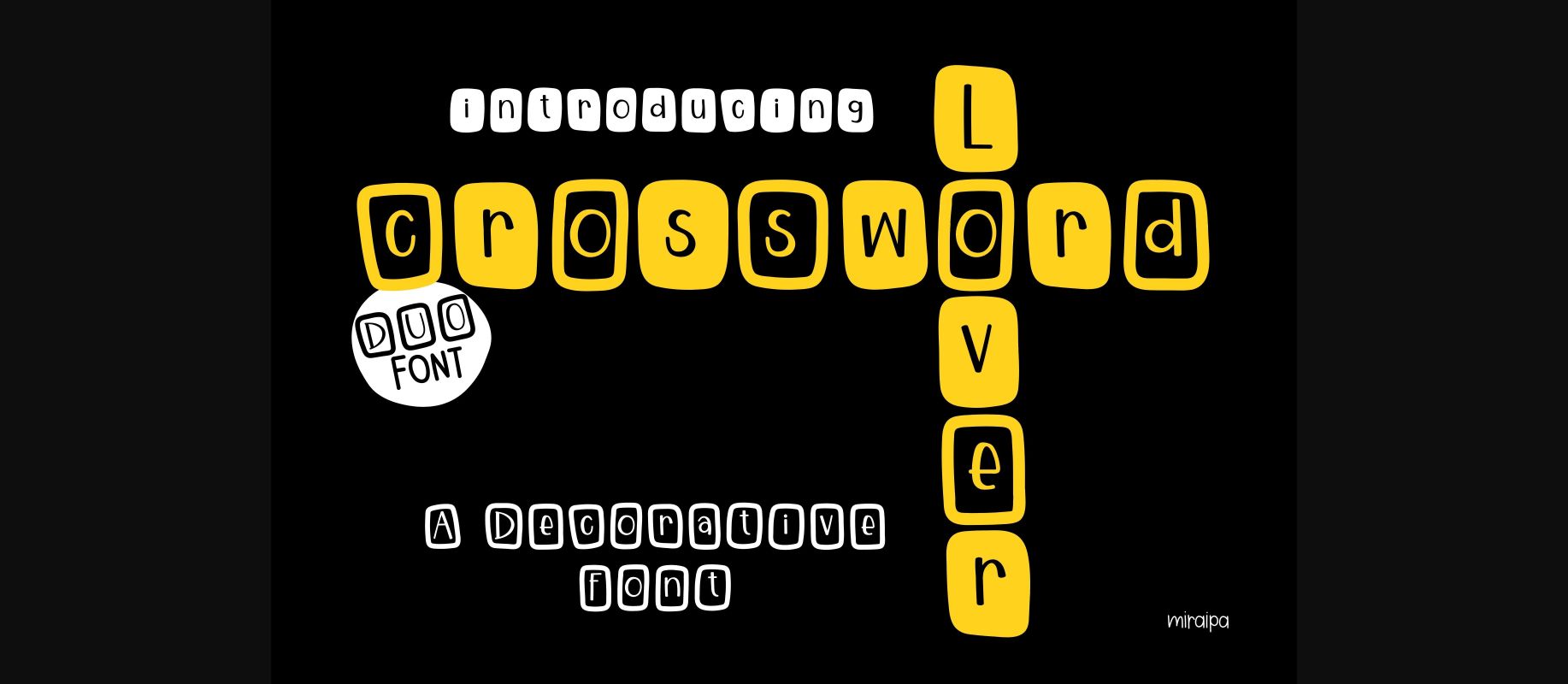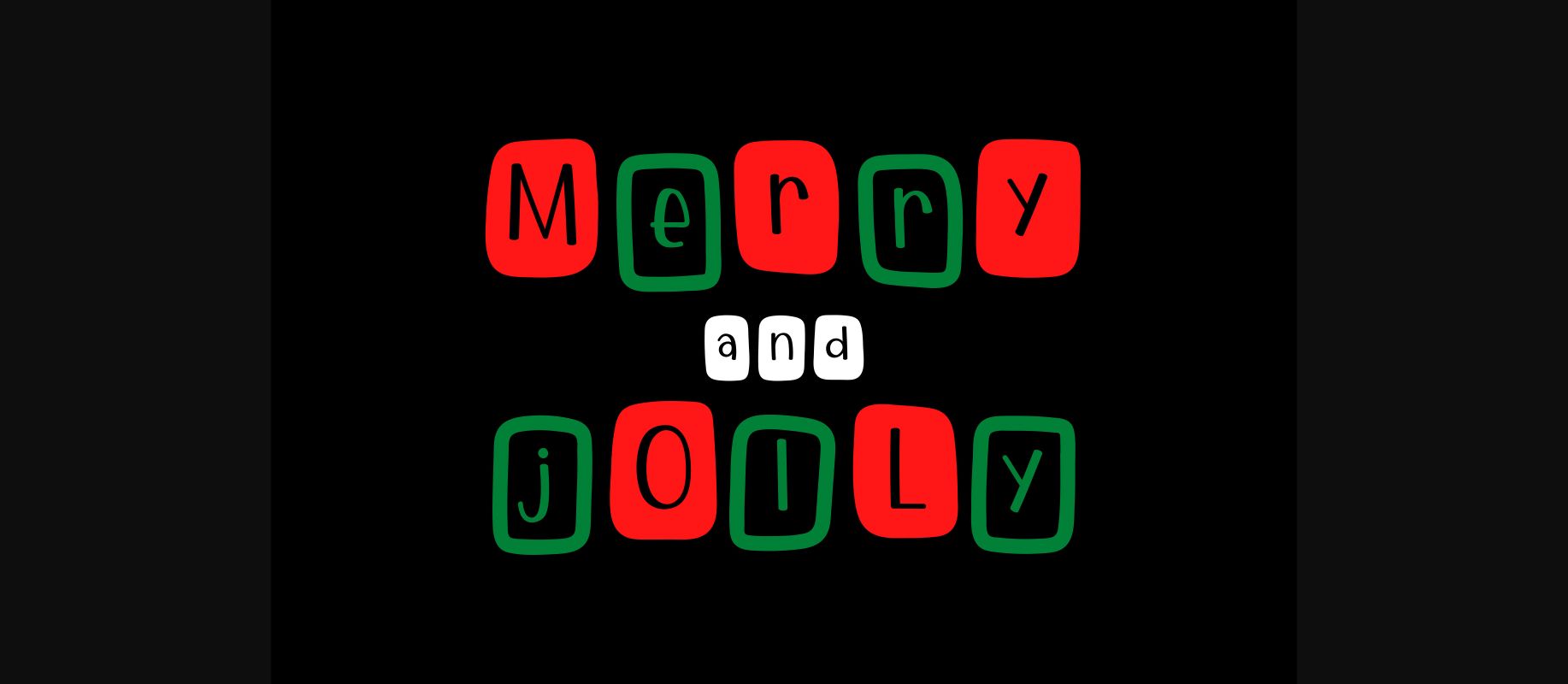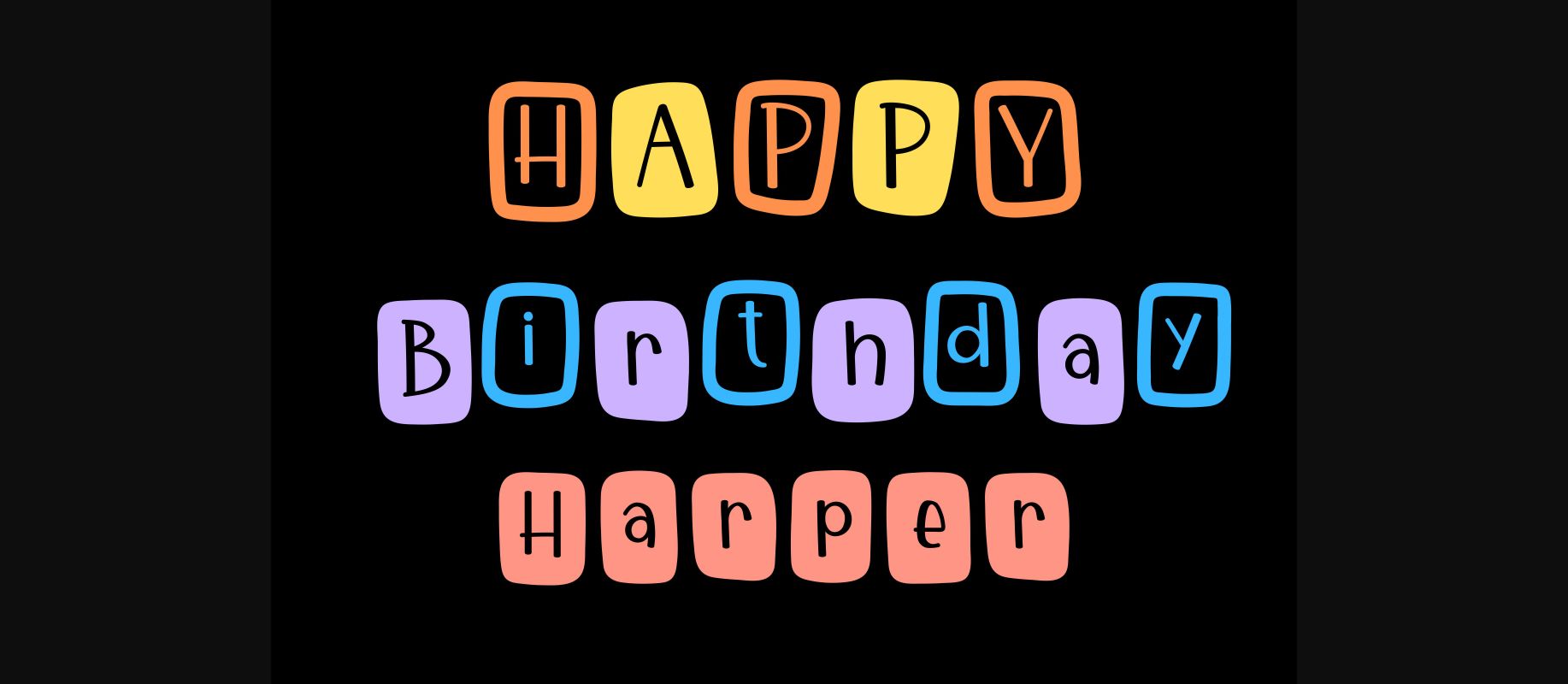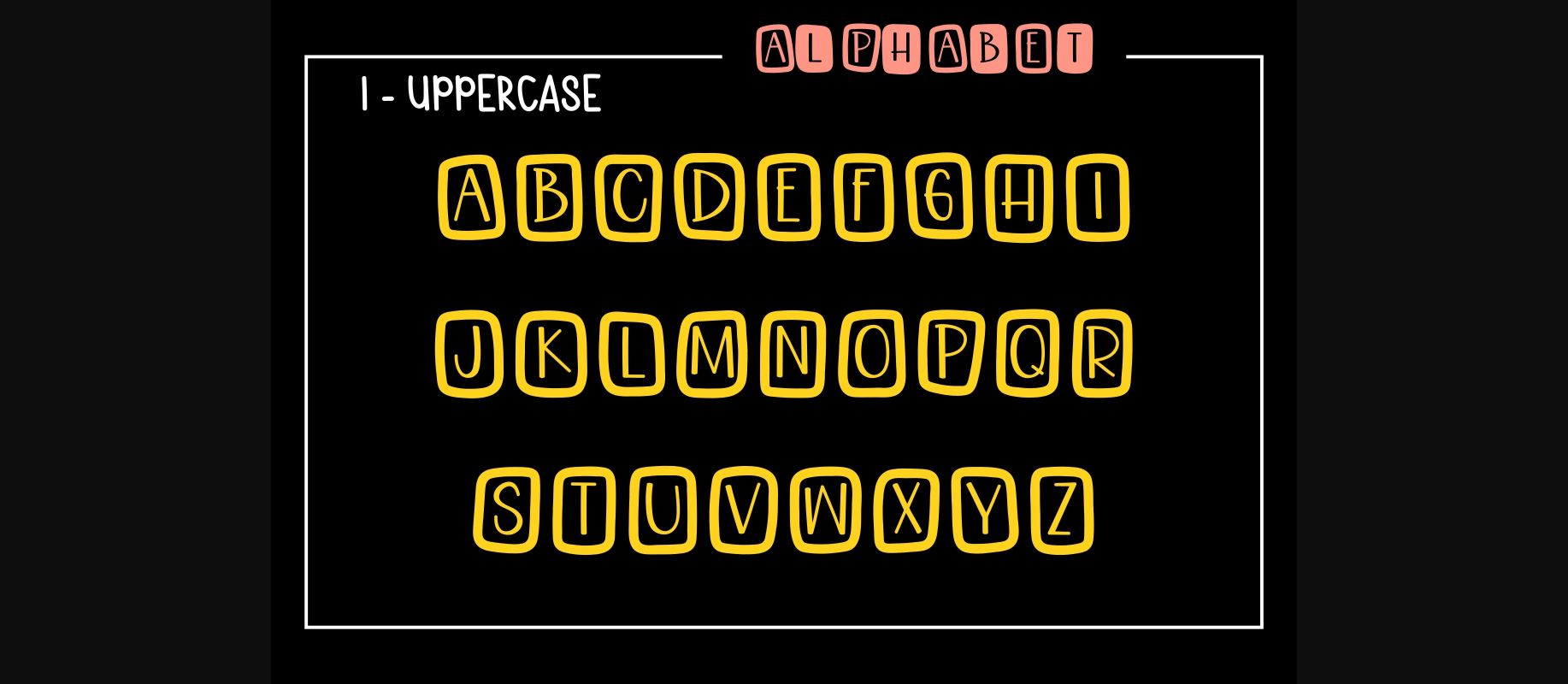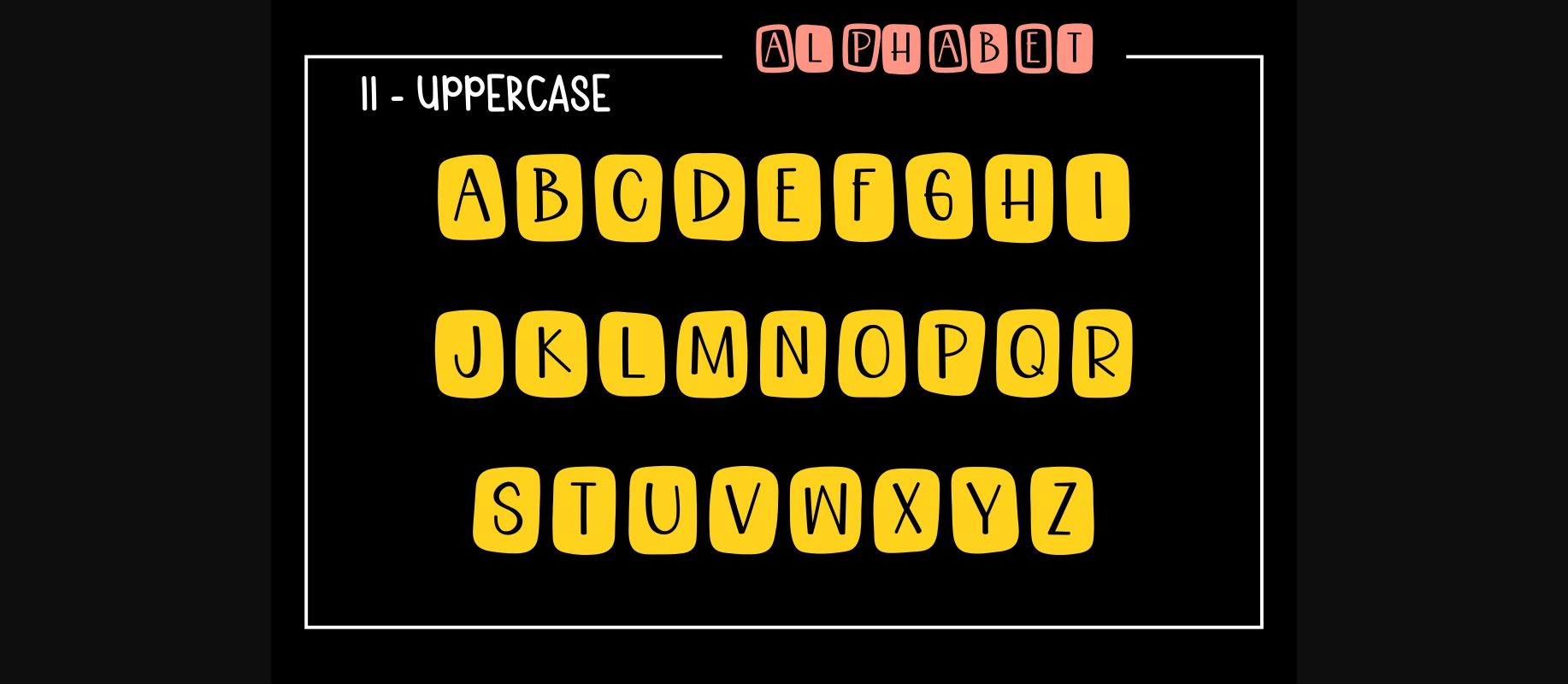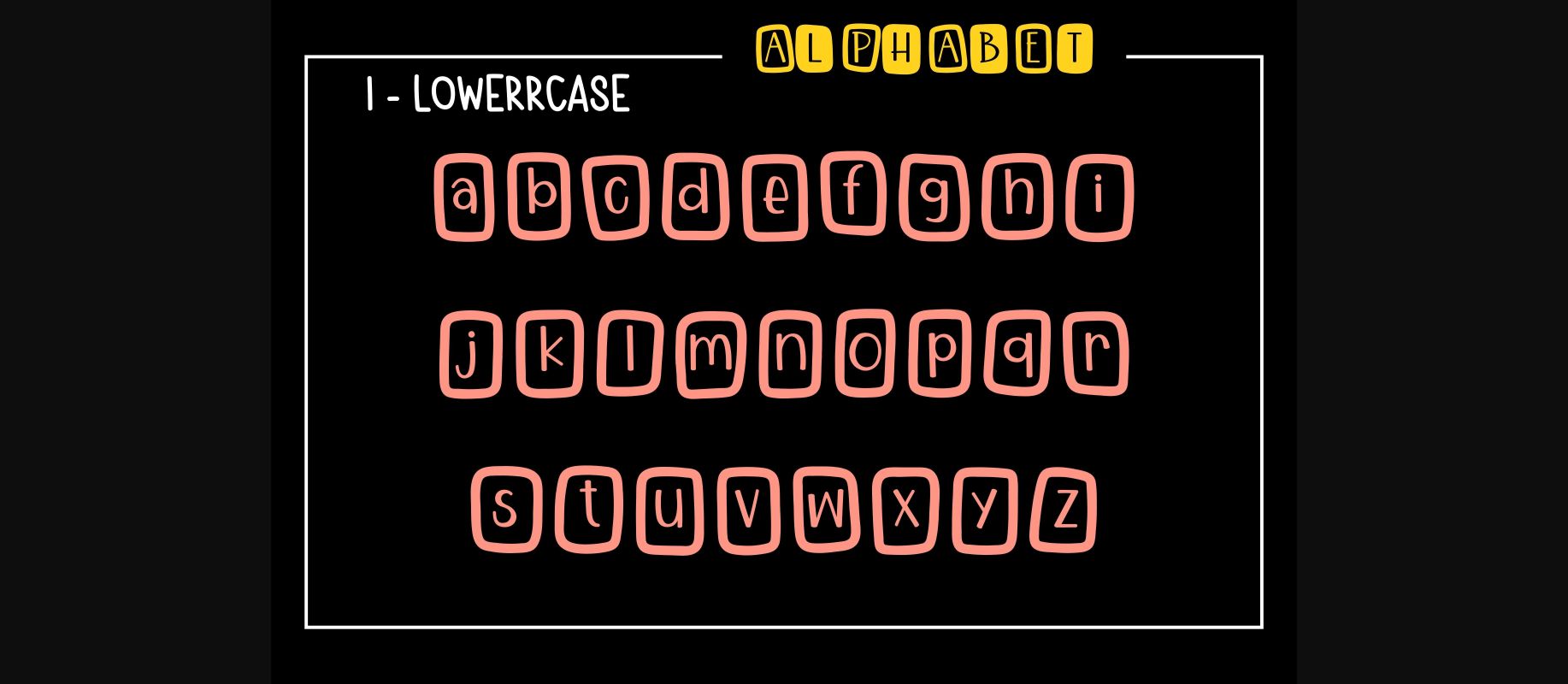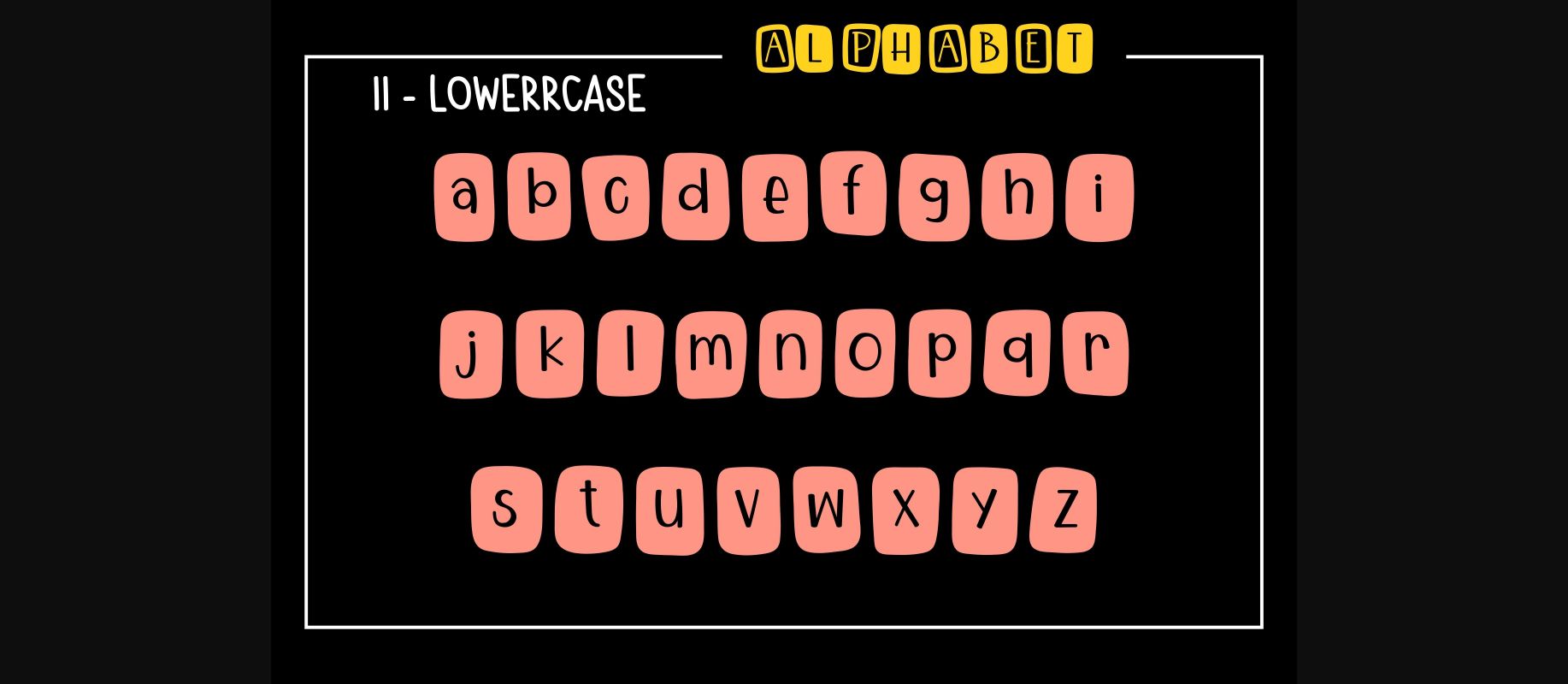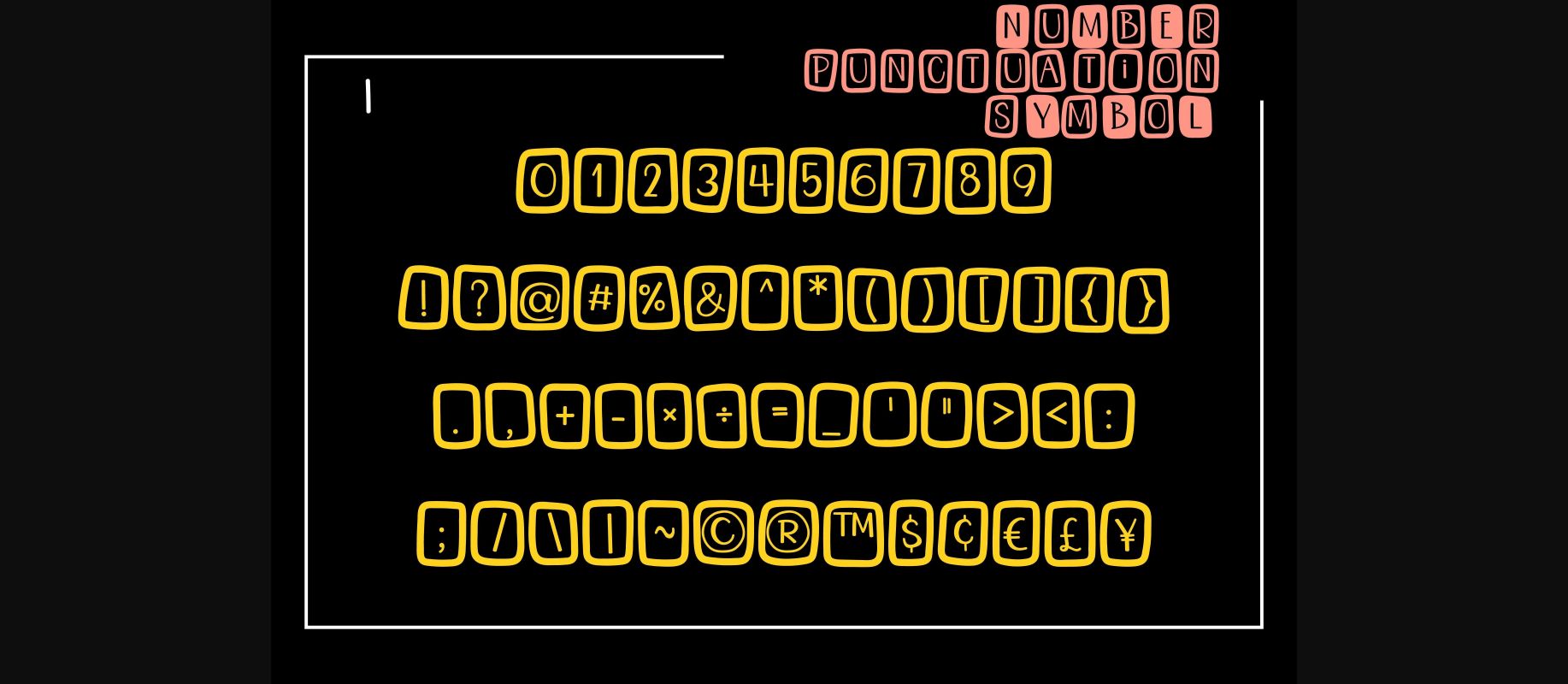
About Crossword Lover Font
Crossword Lover is a decorative font designed in a friendly and playful style. It is perfect for celebrations such as Halloween, Christmas, Birthdays, or anything kids-related. Feel free to adapt it to your awesome projects such as party decorations, party invitations, posters, blogs, clothing, greeting cards, social media posts, or anything that needs a friendly touch. Add it now to your fonts library, and it will bring any of your DIY projects to life.